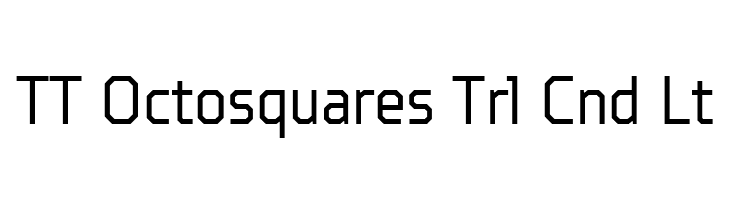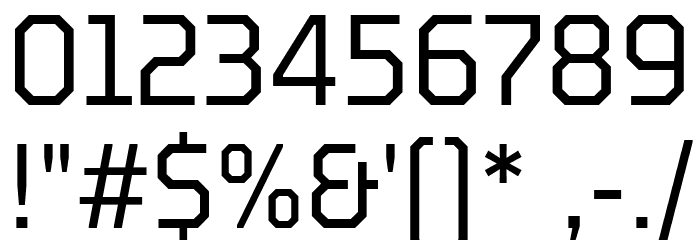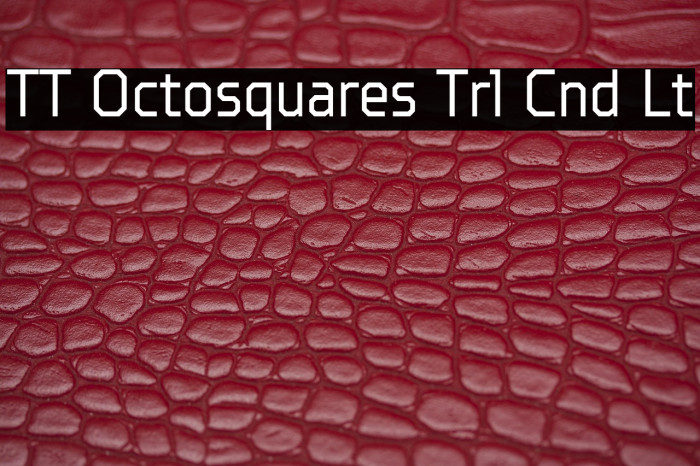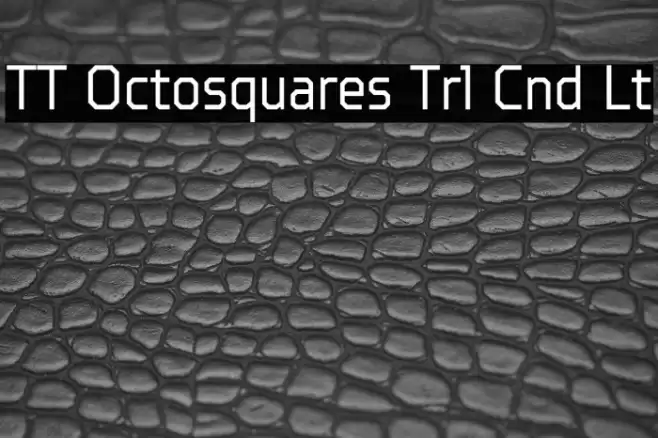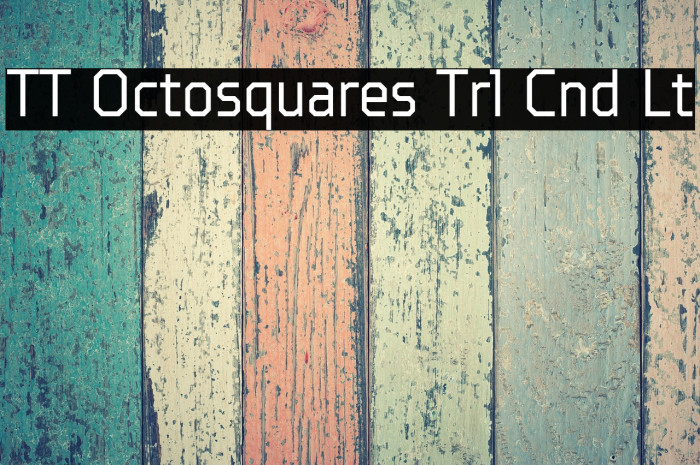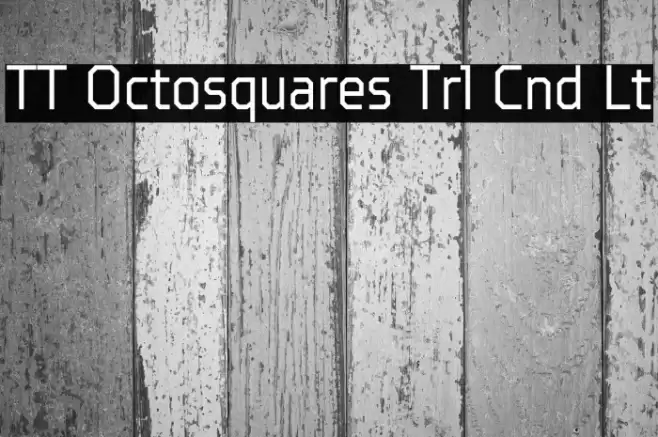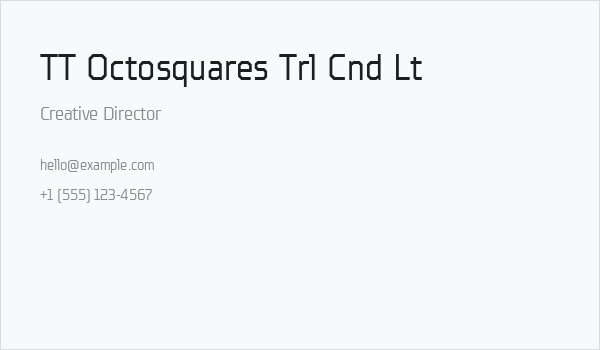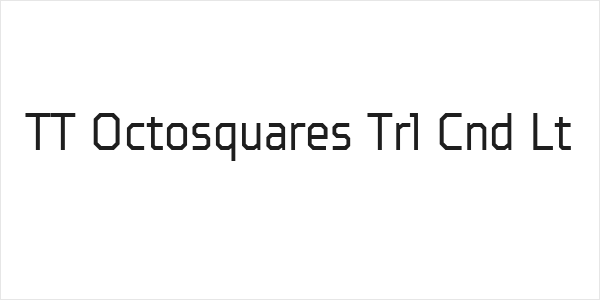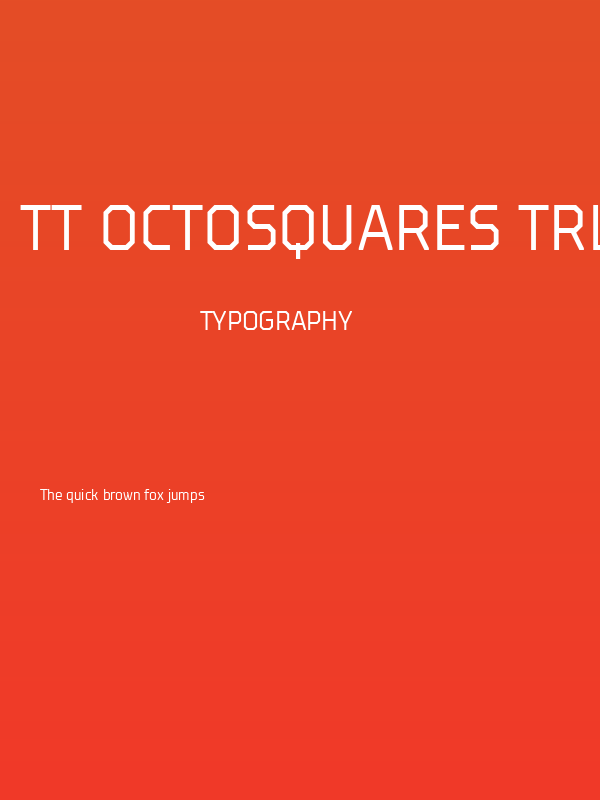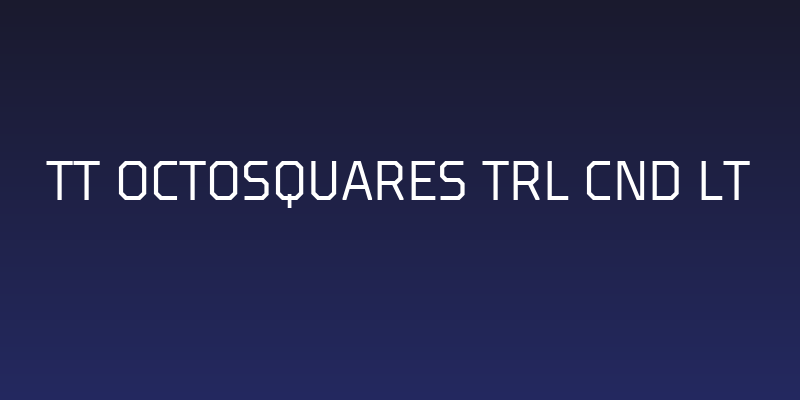
TT Octosquares Trl Cnd Lt Font
✎ Futuristic
| الفئات | Futuristic |
| العرض | Condensed |
| حالة الاستخدام | Headlines, Logos, Digital interfaces |
| مشاريع مقترحة | Ideal for technology branding, digital interfaces, coding environments, and modern advertising. |